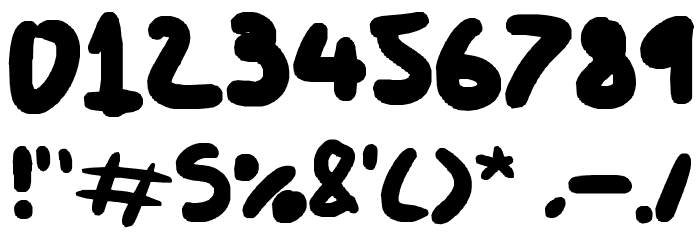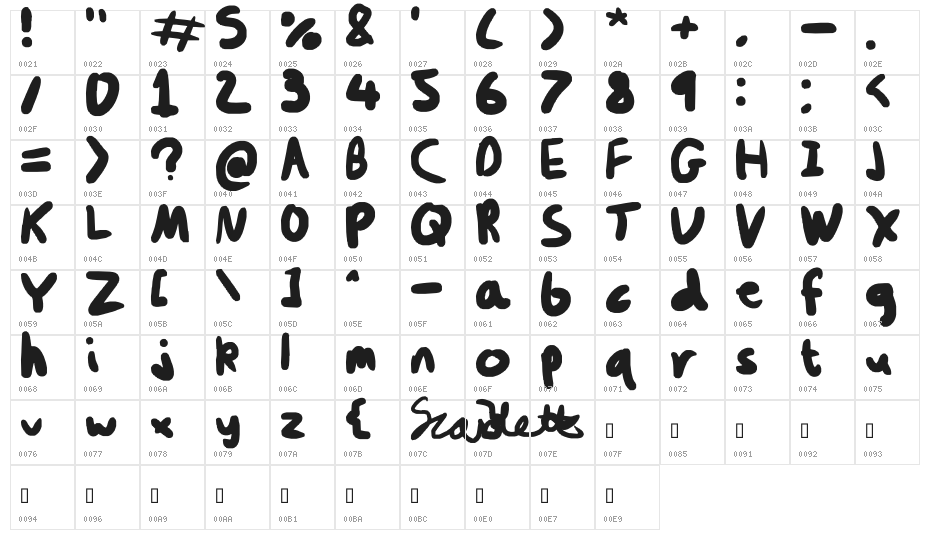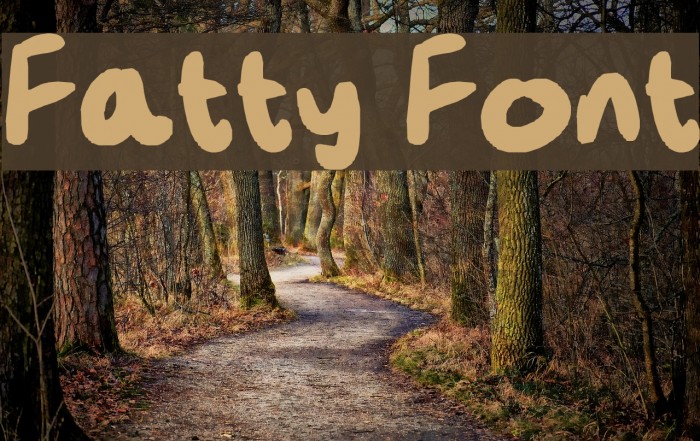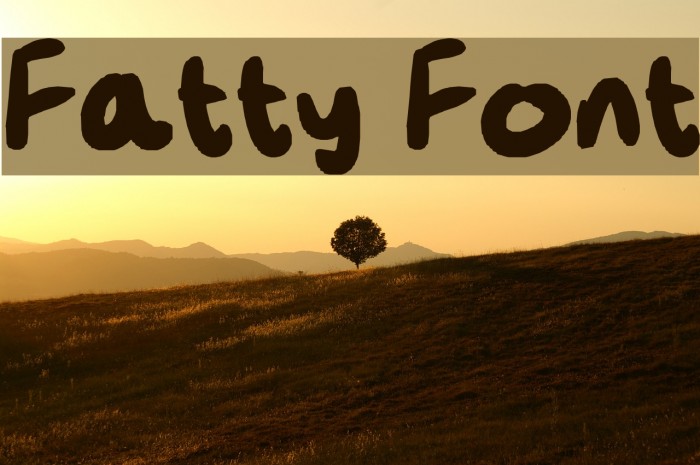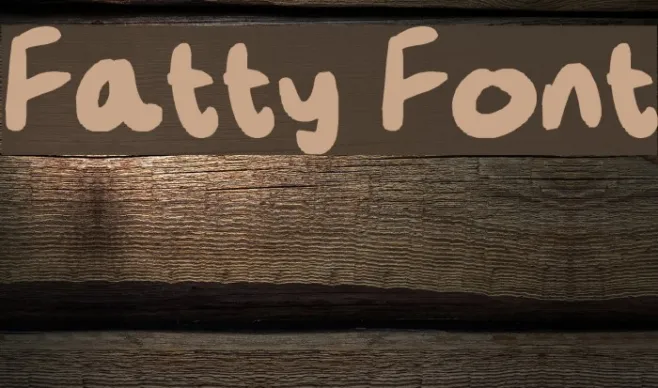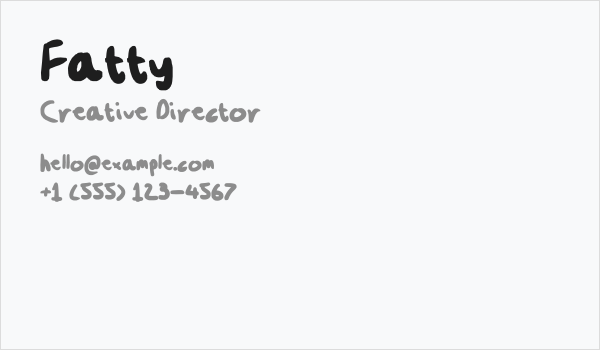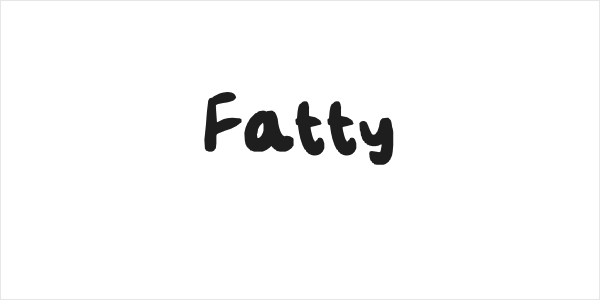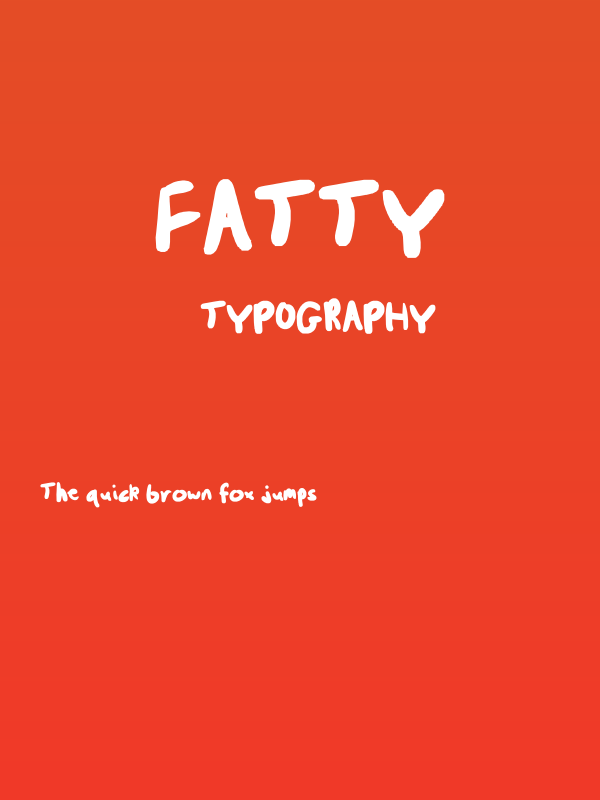
Fatty Font
Fatty Description
This font features a bold and playful style with thick, rounded strokes that give it a friendly and approachable appearance. The characters are slightly irregular, adding a hand-drawn feel that enhances its casual and informal nature. The uppercase and lowercase letters maintain a consistent weight, providing a cohesive look across the alphabet. Numbers and special characters are equally bold, ensuring readability and visual impact. This font's unique charm makes it ideal for projects that require a touch of whimsy and creativity.
Overall StylePlayful
Proposed ProjectsPerfect for children's books, playful branding, posters, and creative social media graphics.